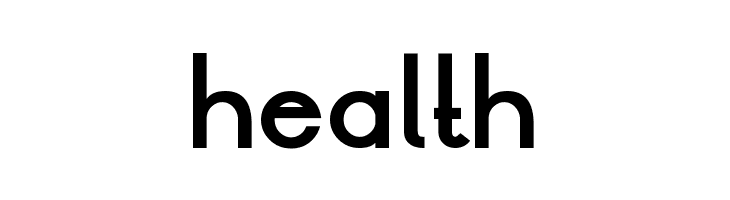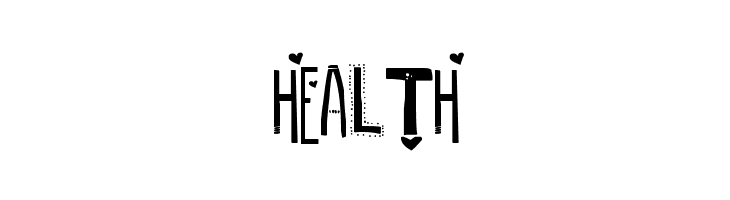
A bold, geometric font with art deco influences and clean lines.
An artistic, ink-splattered handwritten font with dynamic flair.
A mix of bold, modern, and decorative logotype fonts for branding.
A playful, decorative font with whimsical elements like hearts and dots.
A bold, geometric font with a modern and futuristic design.
A casual, handwritten cursive font with smooth, connected strokes.